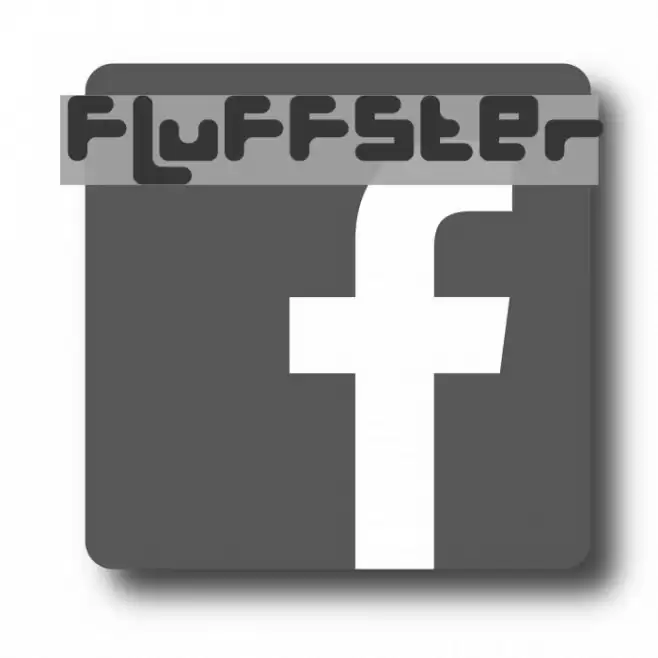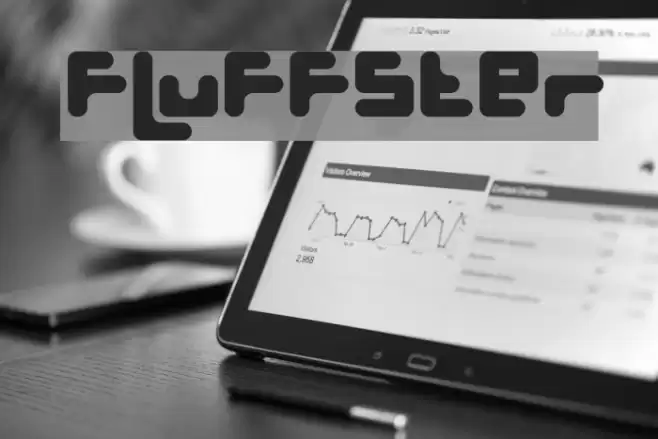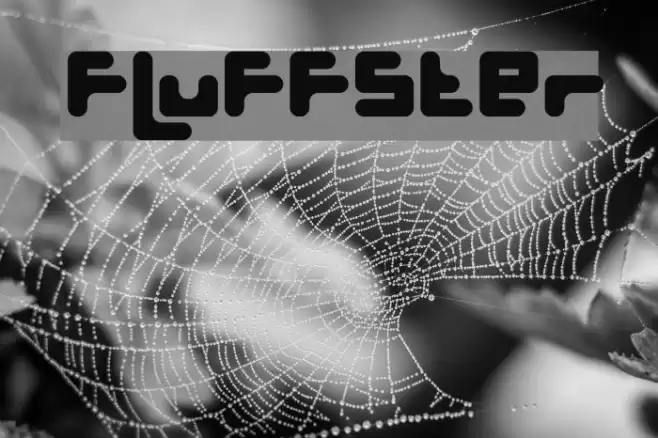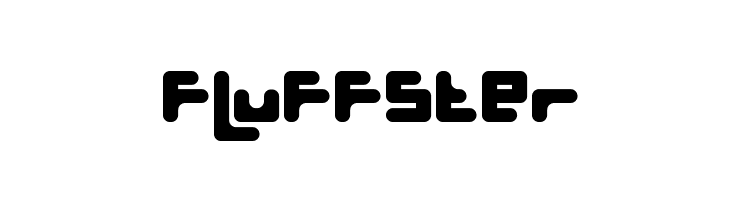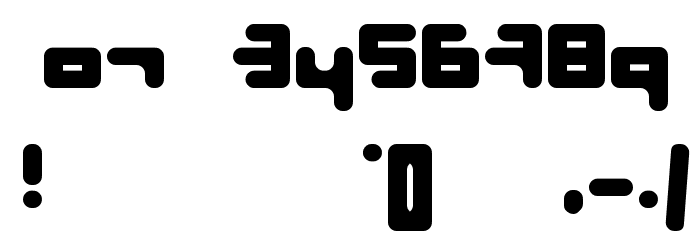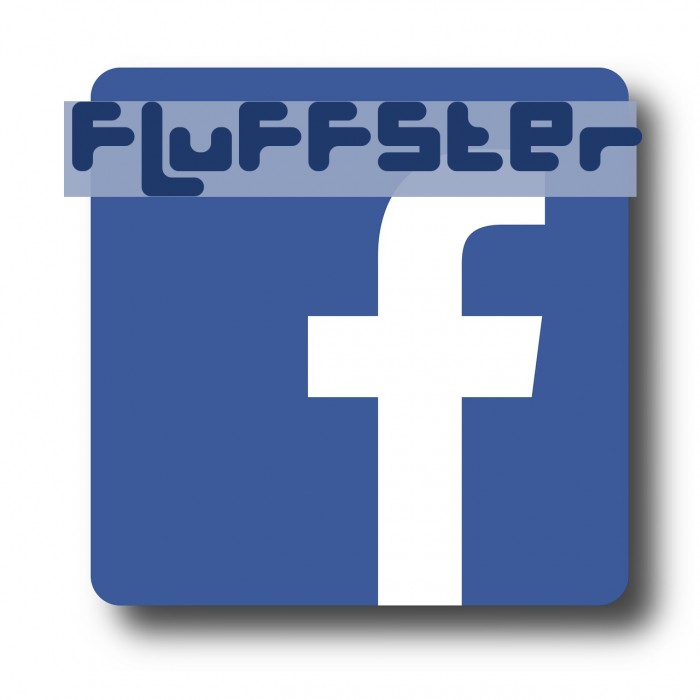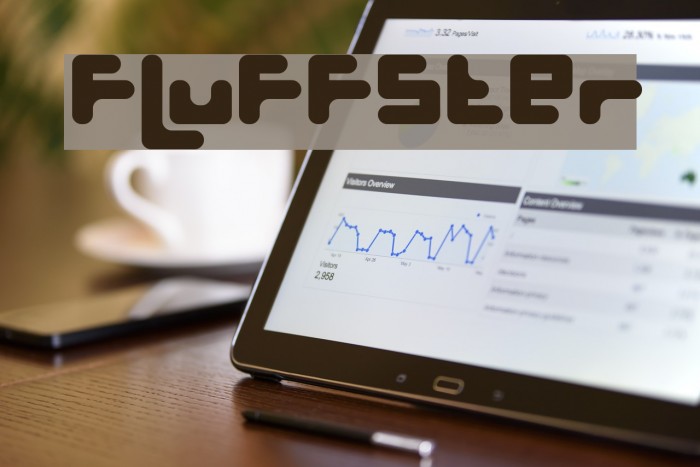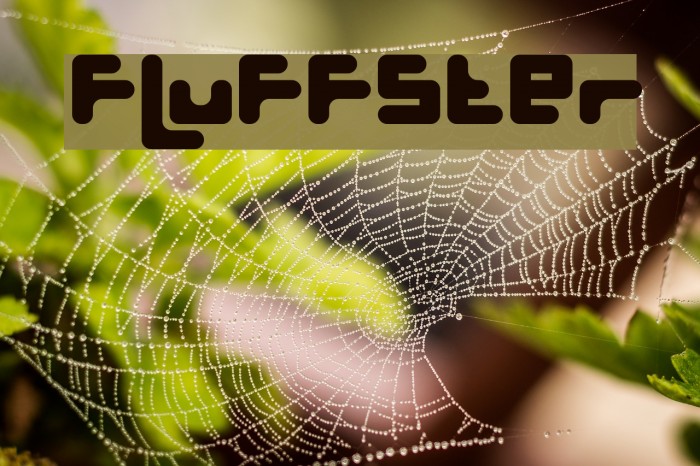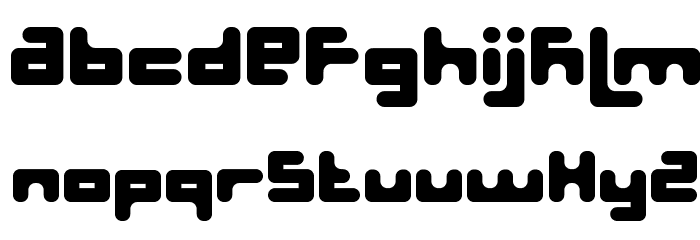
Fluffster Font
Fluffster Description
This font features a playful and bold design with rounded edges and a bubbly appearance. The characters are uniformly thick, creating a cohesive and friendly look. The letters are slightly condensed, giving a compact feel while maintaining readability. The style is consistent across uppercase, lowercase, and numerals, with a unique flair in the special characters that adds to its charm. The overall aesthetic is modern and approachable, making it suitable for a variety of creative applications.
A playful, bold font with rounded edges and a modern, friendly style from Kids fonts.
- Proposed Projects: Ideal for children's books, playful branding, posters, and creative digital content.